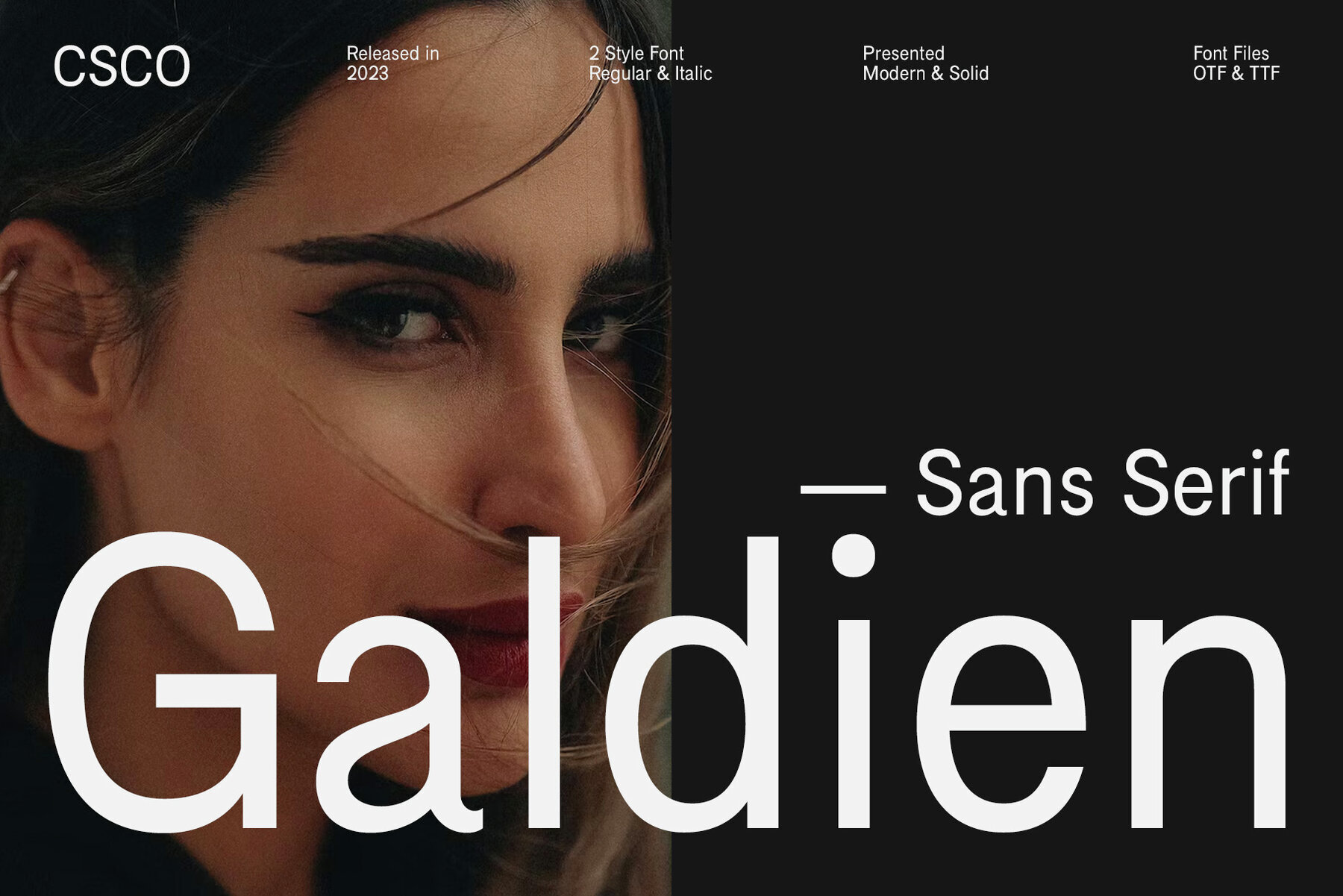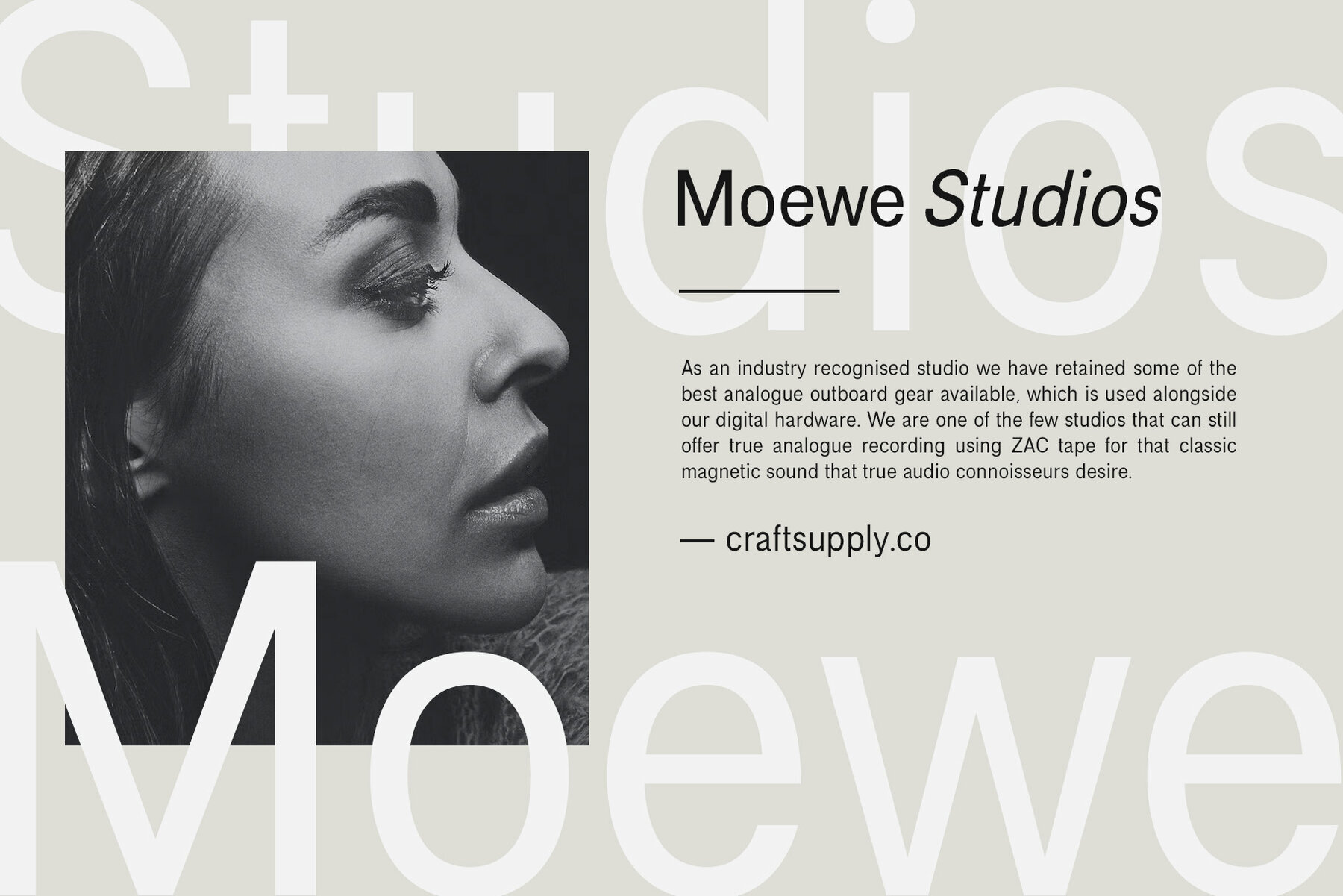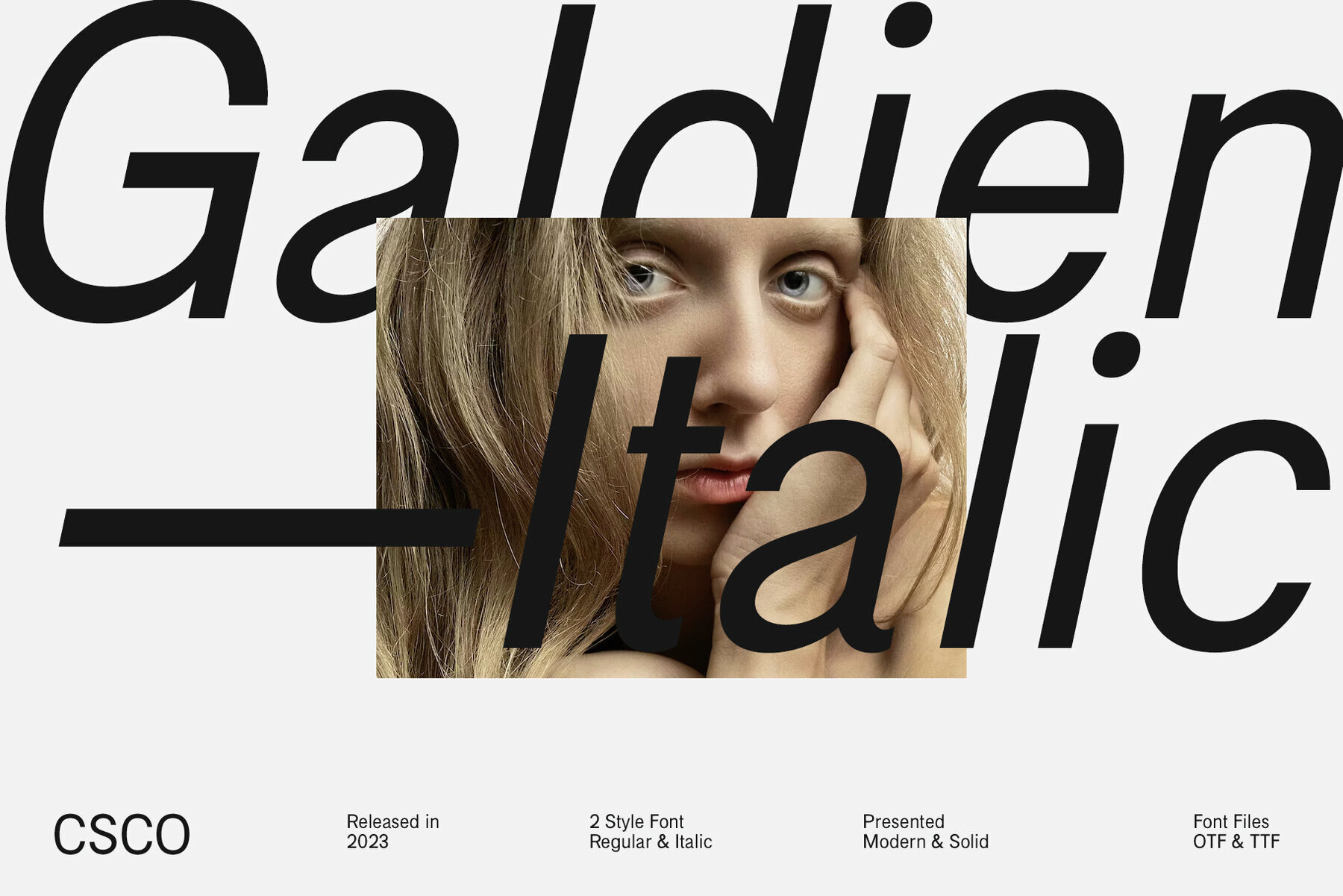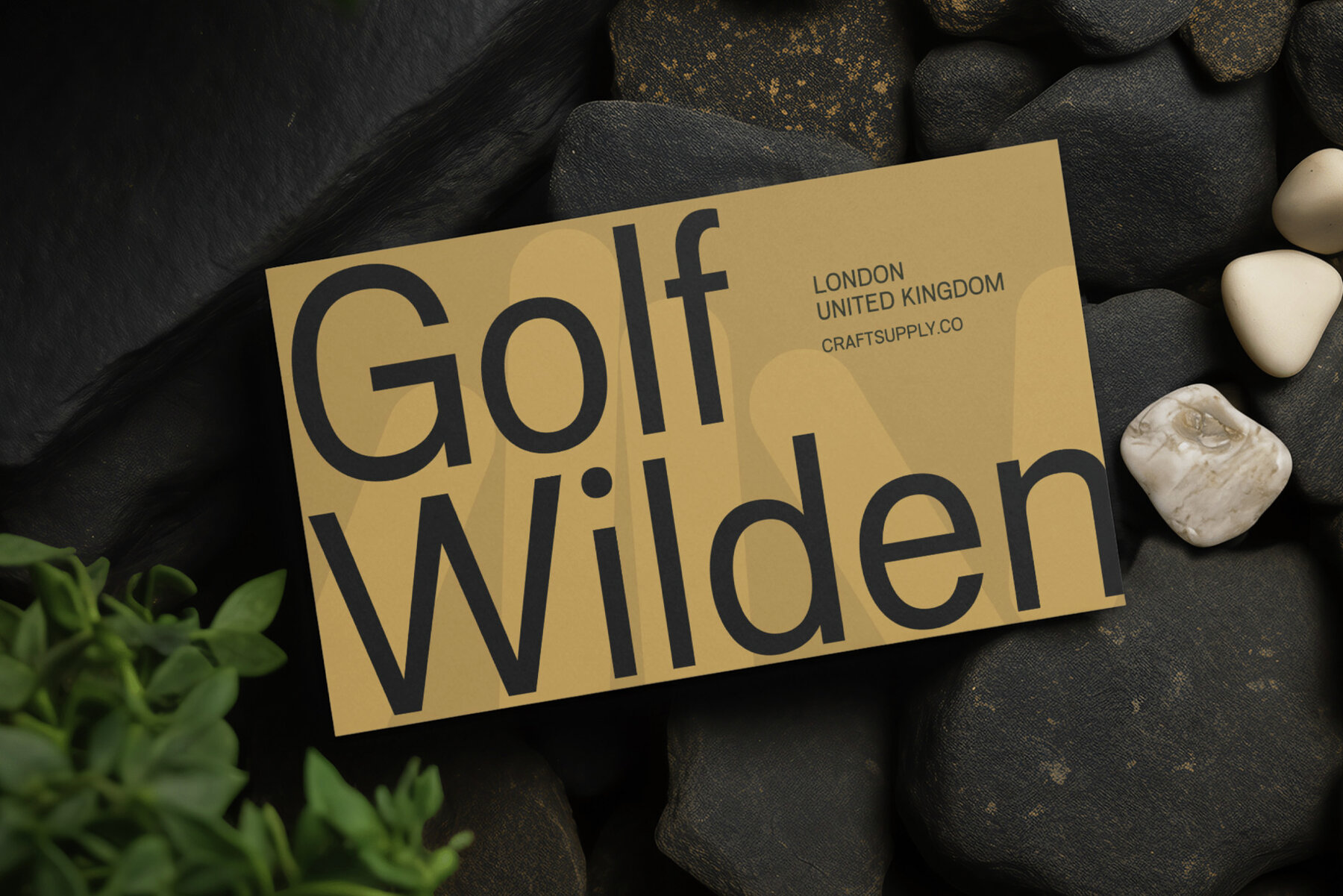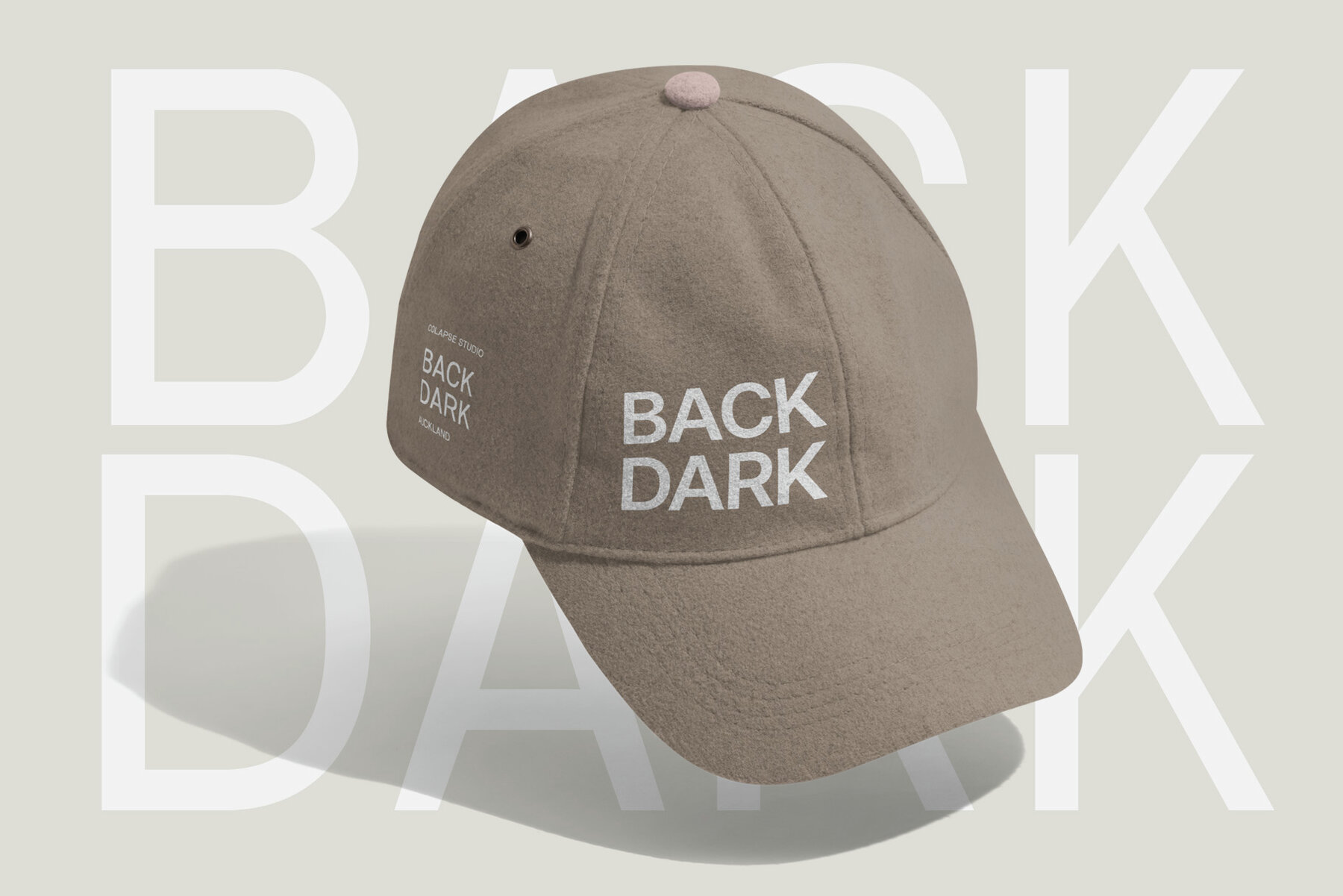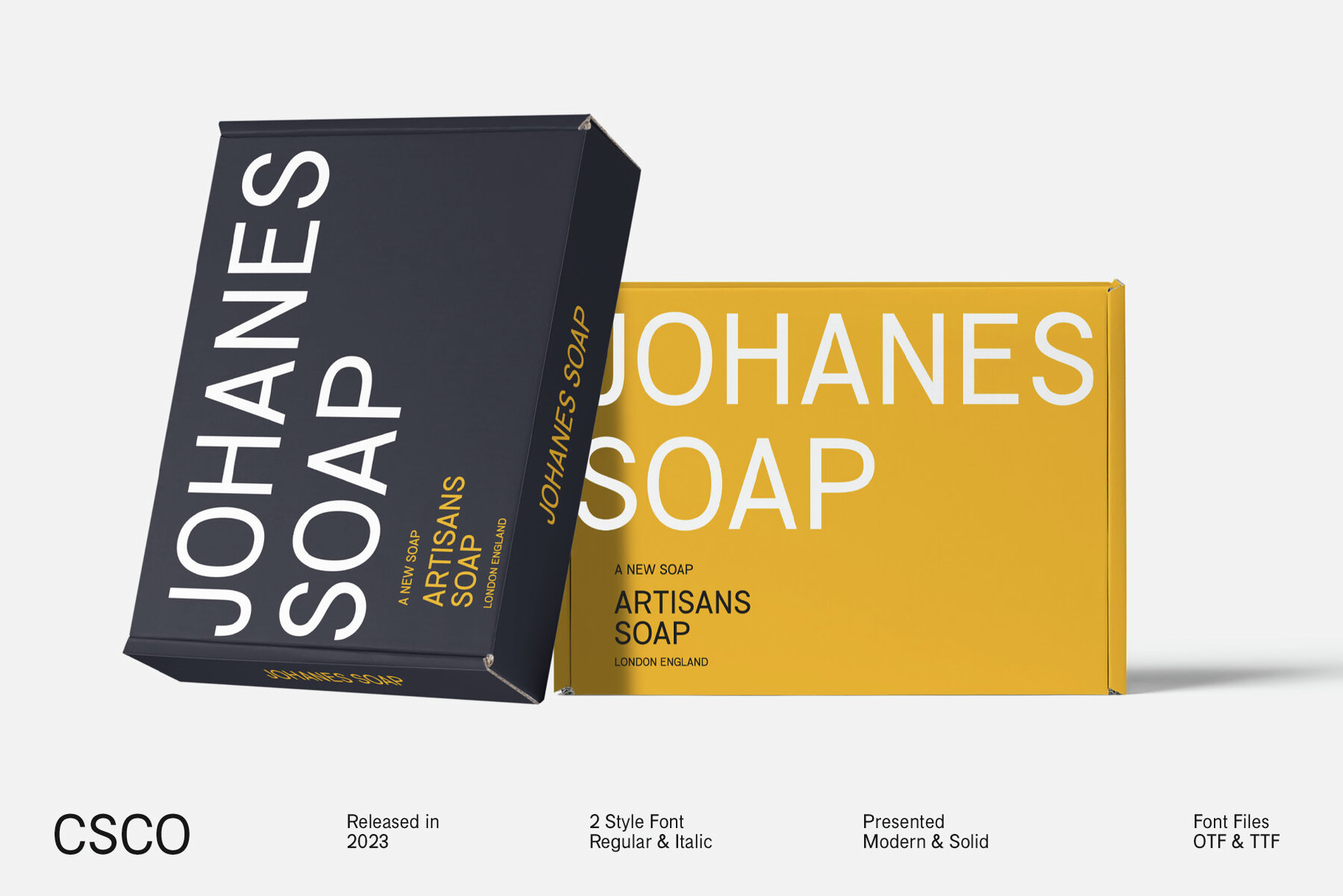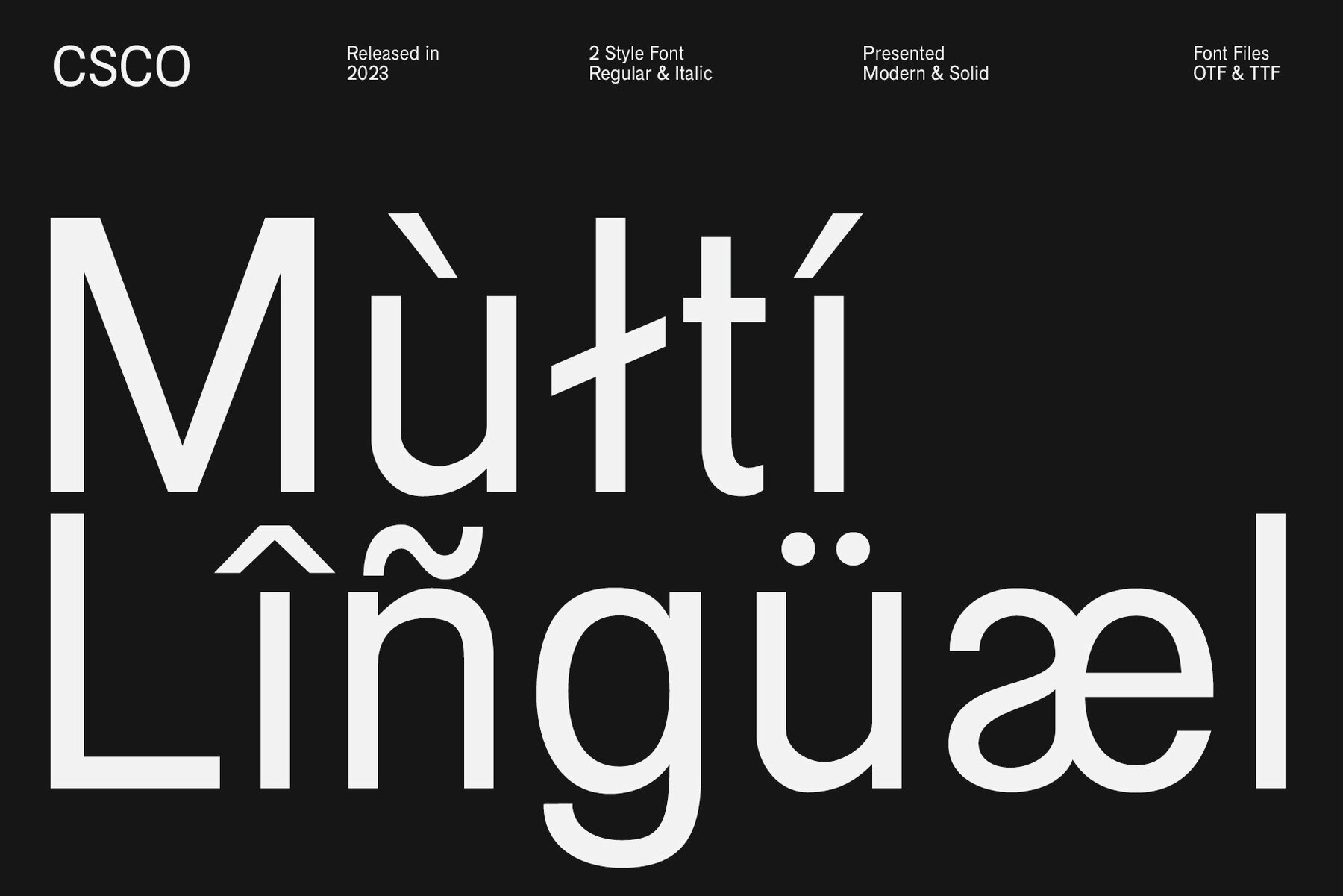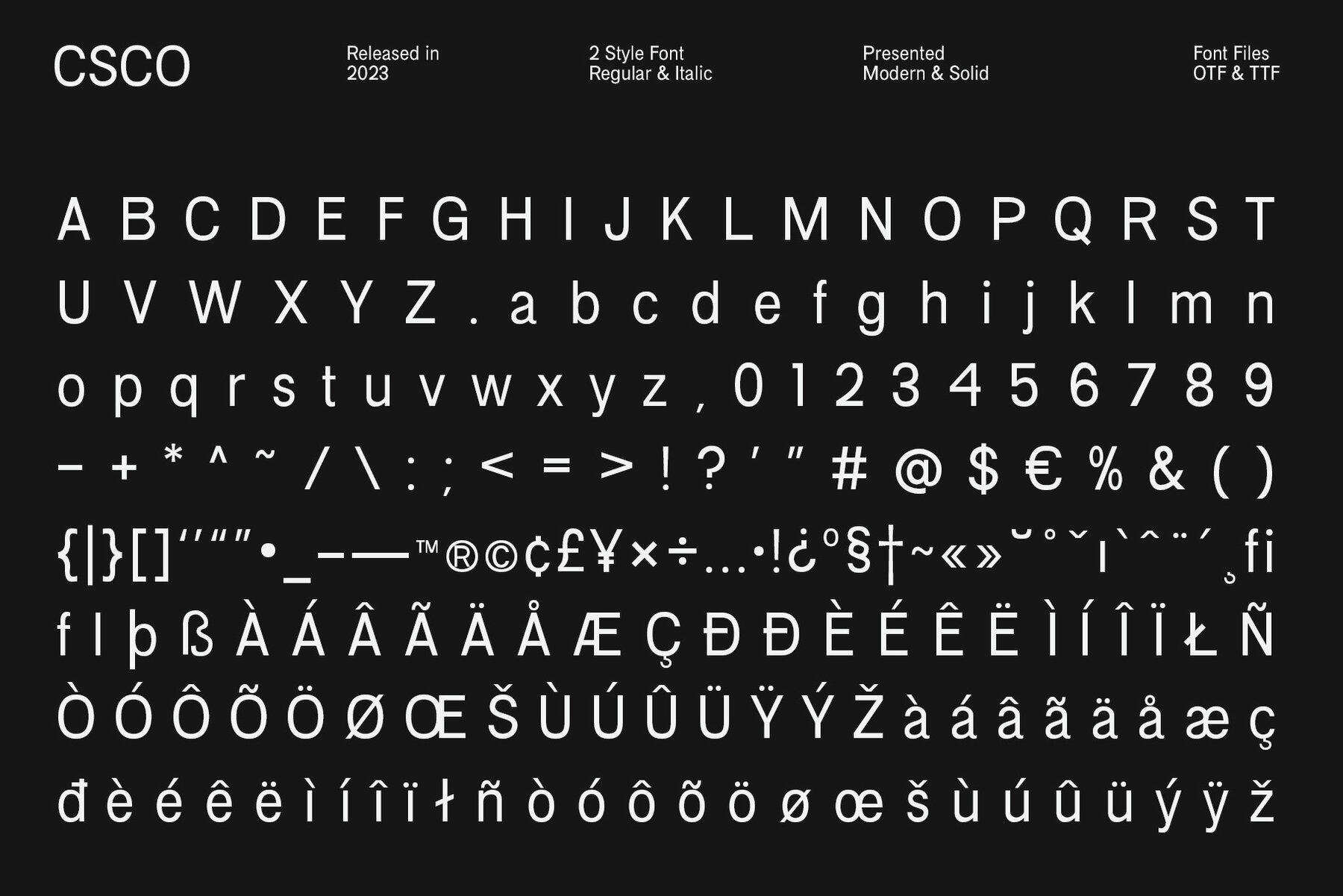
Galdien Font
Introducing Galdien – Modern Sans Serif Font A Contemporary Typeface Galdien – Modern Sans Serif Font is, without a doubt, a testament to contemporary design simplicity and elegance. It seamlessly blends modernity with readability. Clean and Versatile Furthermore, Galdien’s clean lines and uncluttered appearance make it an extraordinarily versatile choice for a wide range of design applications. Its simplicity ensures it doesn’t overpower your message, making it a font suitable for various projects. Readability at its Core At its core, Galdien prioritizes readability. Each character is thoughtfully crafted to ensure clarity in both print and digital formats. This font’s legibility is especially essential for conveying your message effectively and effortlessly. Ideal for Modern Branding Additionally, Galdien is perfectly suited for modern branding initiatives. Its clean and sleek aesthetic aligns seamlessly with contemporary brand identities, offering a cohesive and professional look that resonates with today’s audience. Galdien – Modern Sans Serif Font is your unwavering companion for modern design endeavors. Its simplicity, versatility, and readability, combined with its adaptability to various media, make it an excellent choice for diverse projects. With Galdien, your message is not only communicated with clarity and style but also imbued with a contemporary touch that captivates your audience and leaves a lasting impression.